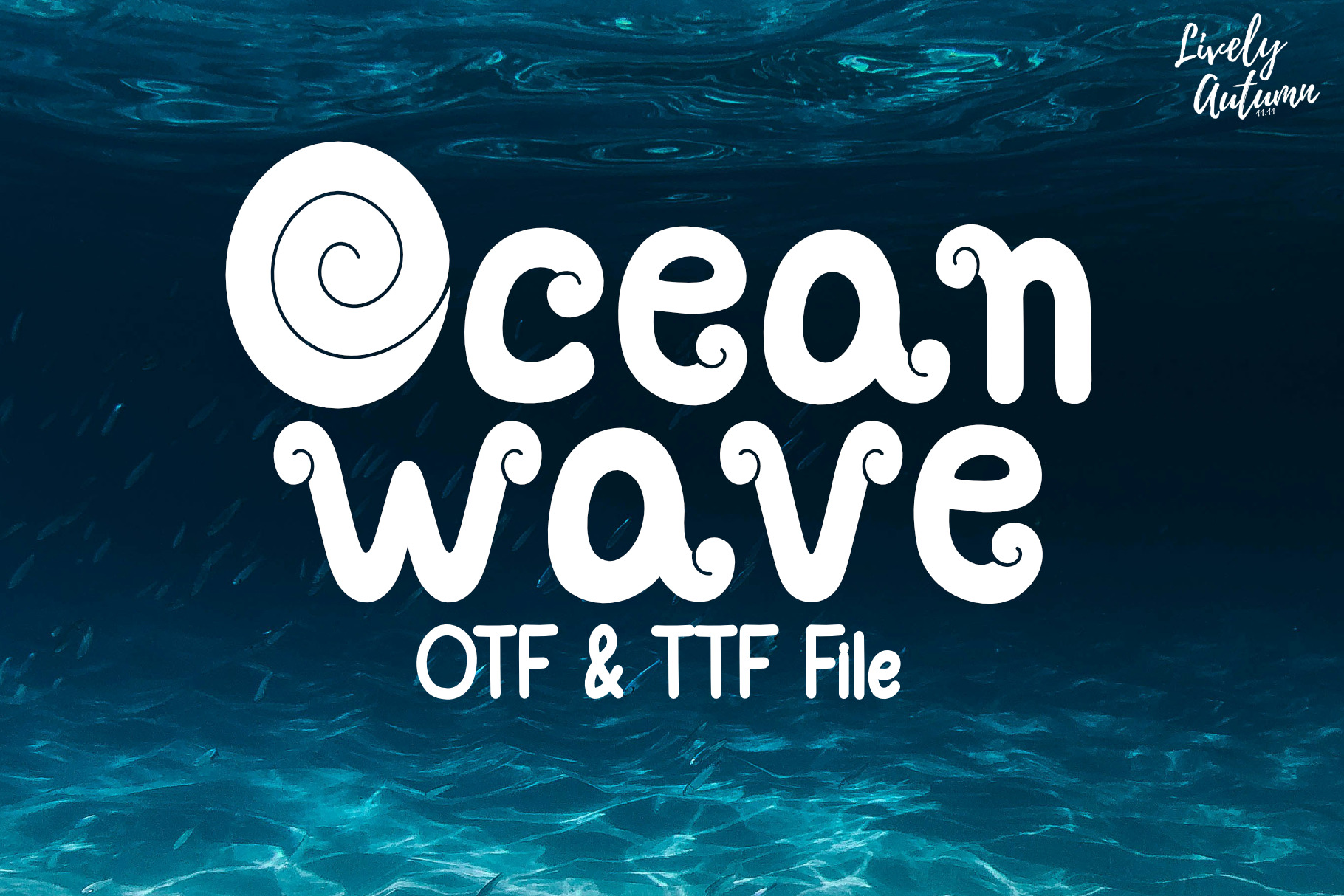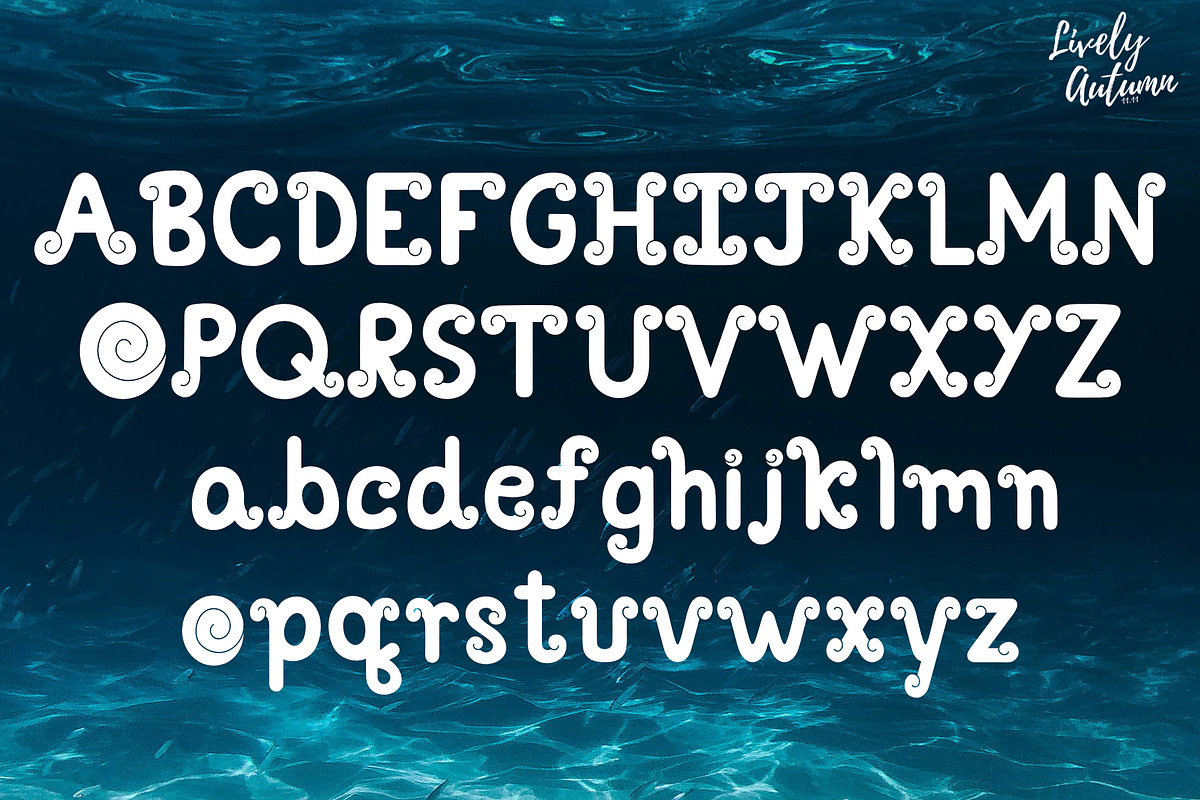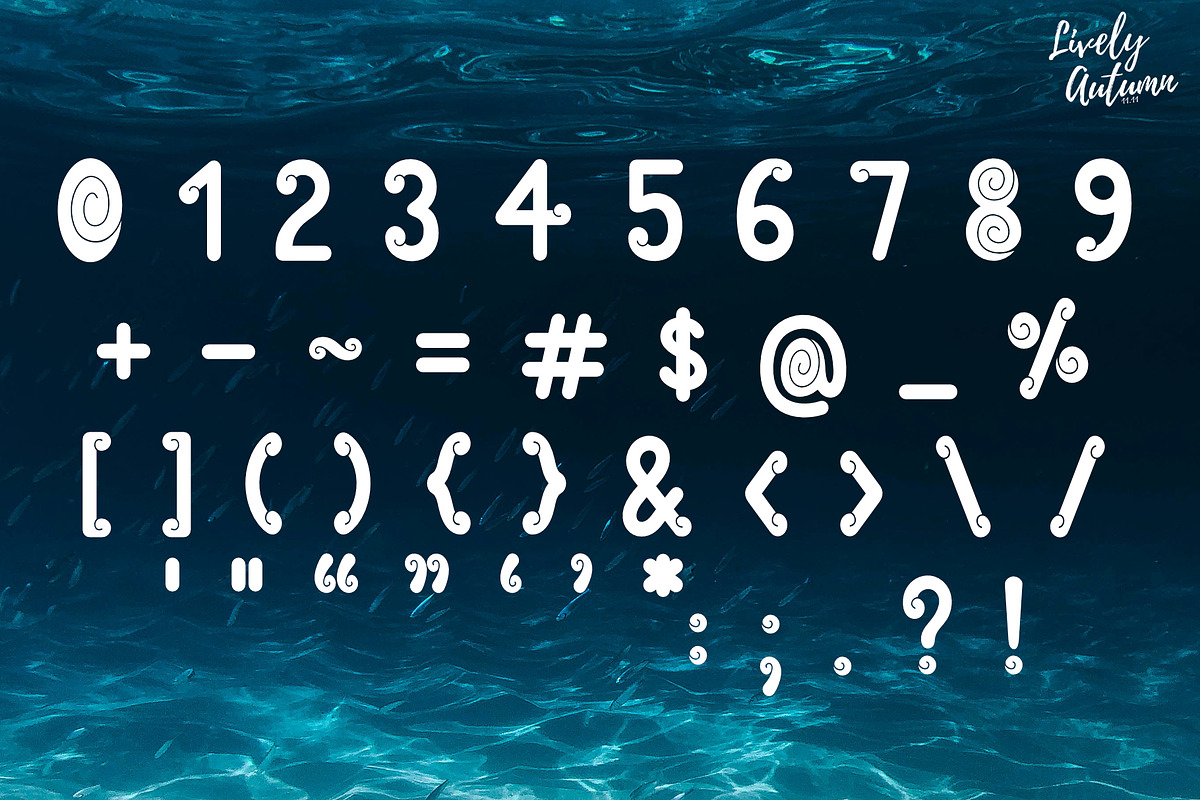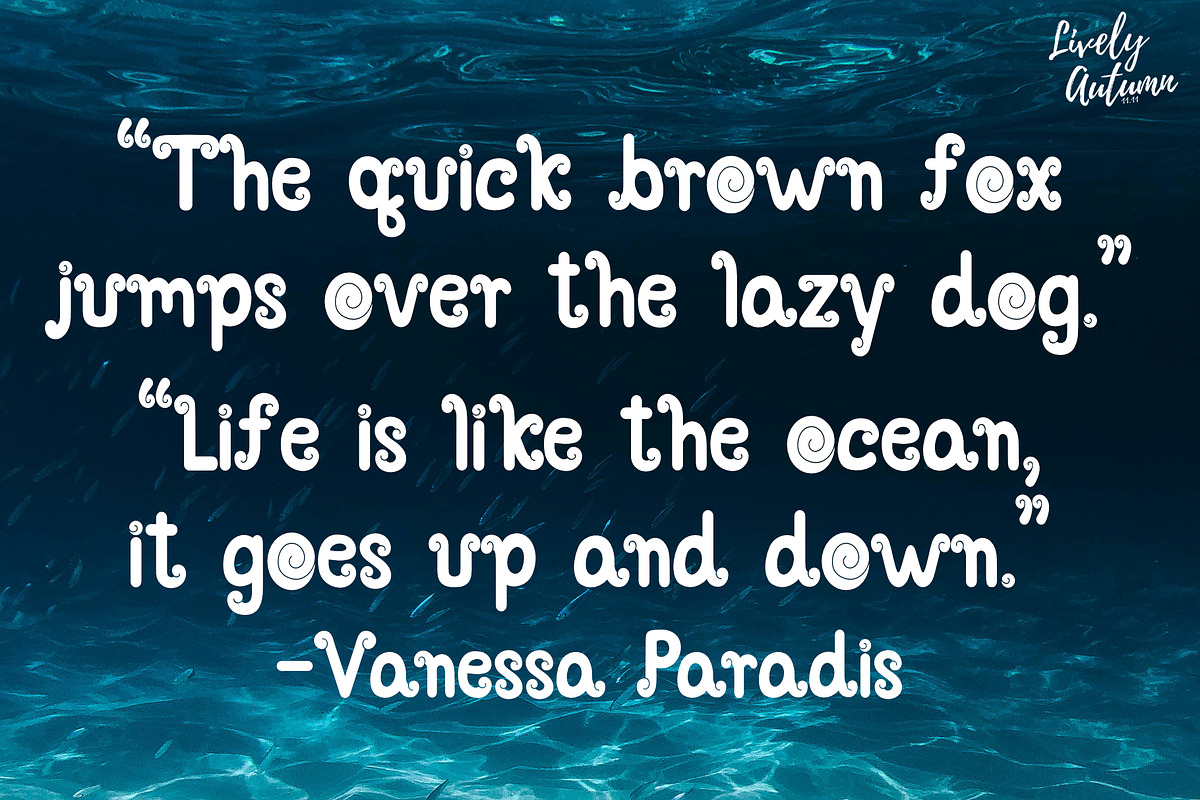
Ocean wave Font
Ocean Wave is a font that has a spiral ocean wave shape attached to each letter. Perfect for your personal projects and various projects. From invitations to posters, social media graphics, journals, and much more.
- Font includes: uppercase, lowercase, numbers, and symbols